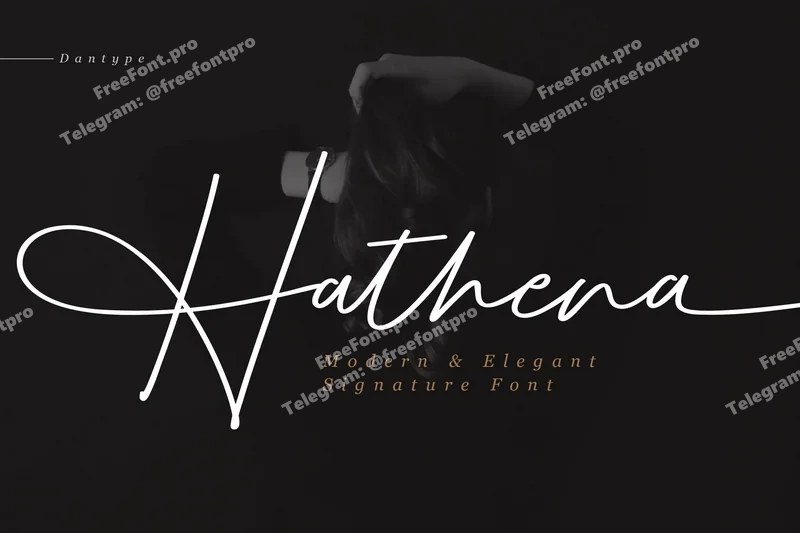
Hathena – Modern Elegant Signature Script
Hathena is a modern signature script designed with fluid elegance and natural handwriting rhythm. Its smooth curves and elongated swashes bring a sophisticated touch to any visual identity — perfect for fashion branding, wedding invitations, photography logos, and editorial layouts. With a fine balance between feminine charm and timeless minimalism, Hathena embodies both confidence and grace.
Uppercase, Lowercase, Punctuation & Numeral
60+ Ligatures & Lowercase Ending Swashes